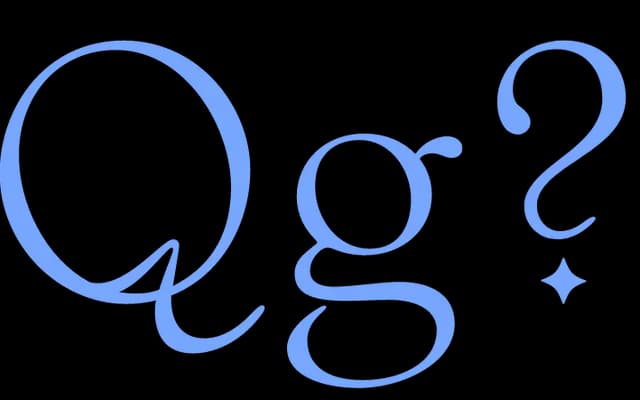
Nightingale
A single-weight display serif with an oblique stress, tapered serifs and teardrop terminals, designed by Celia Yew and released under an open font licence.
Designed by Celia Yew out of Singapore's Death of Typography collective, Nightingale is a display serif built around an oblique axis that gives the letterforms a rhythmic, expressive quality. Tapered serifs and teardrop terminals soften the overall feel, pulling it towards editorial and decorative applications rather than continuous text. Released under the OFL, it is free to download and use for both commercial and non-commercial projects.
A single-weight display serif with an oblique axis, tapered serifs and teardrop terminals, placing it firmly in expressive display territory rather than text use.